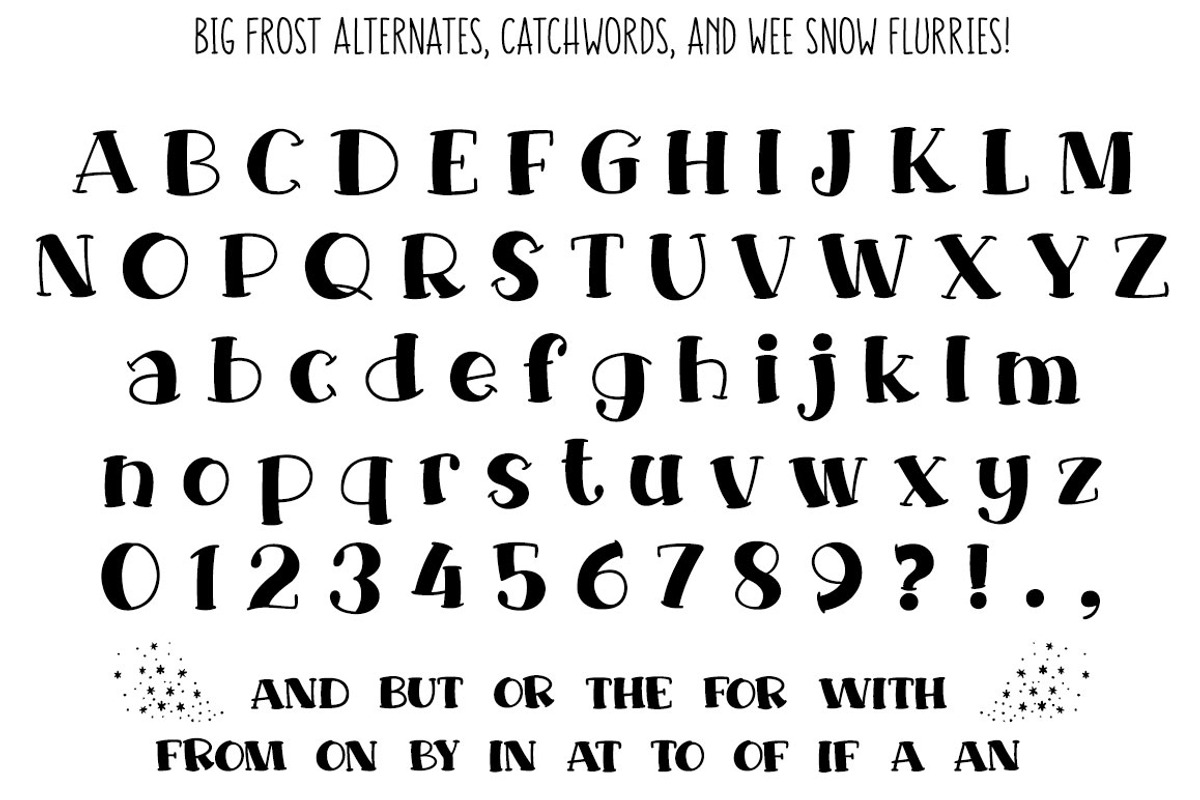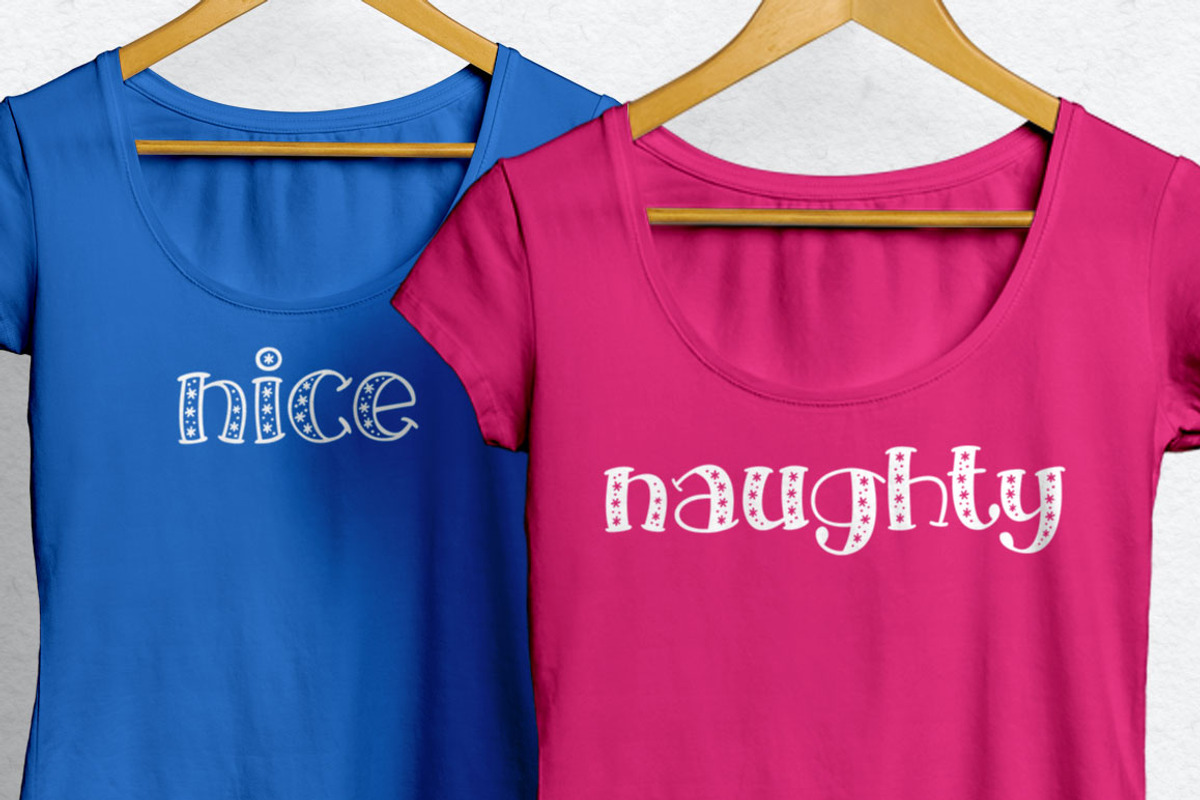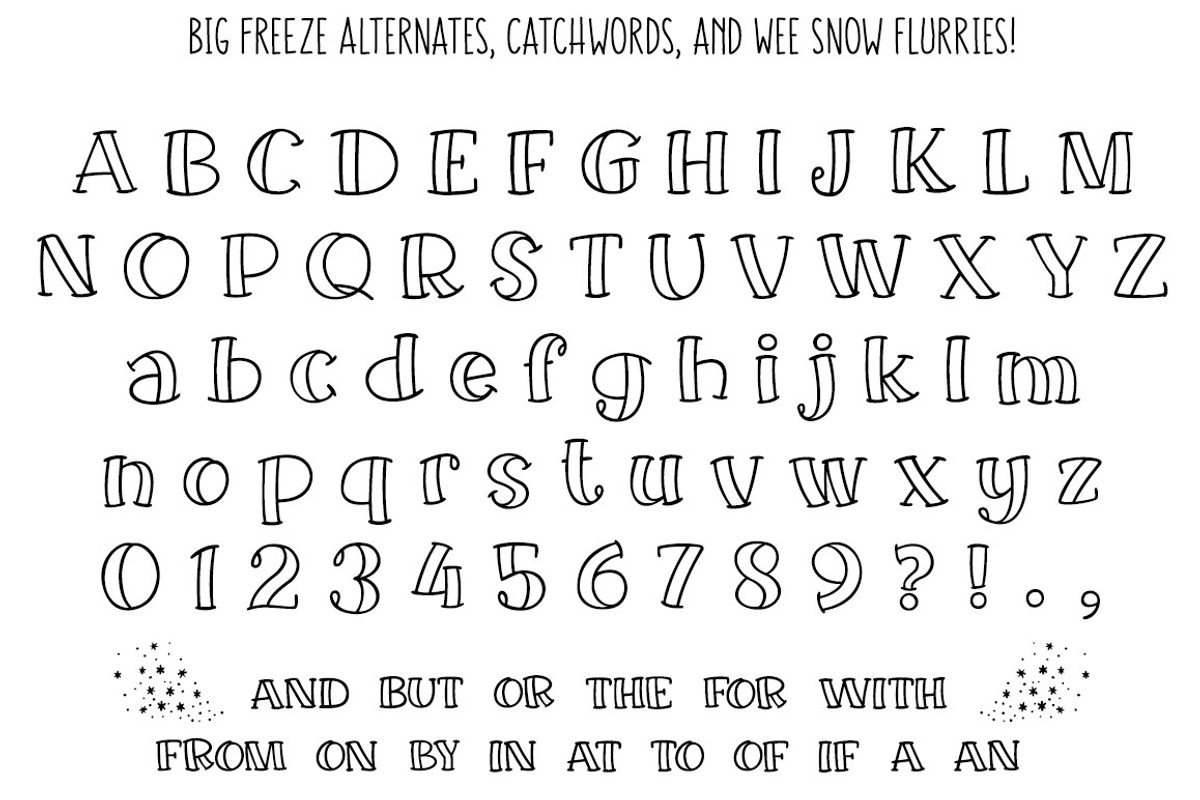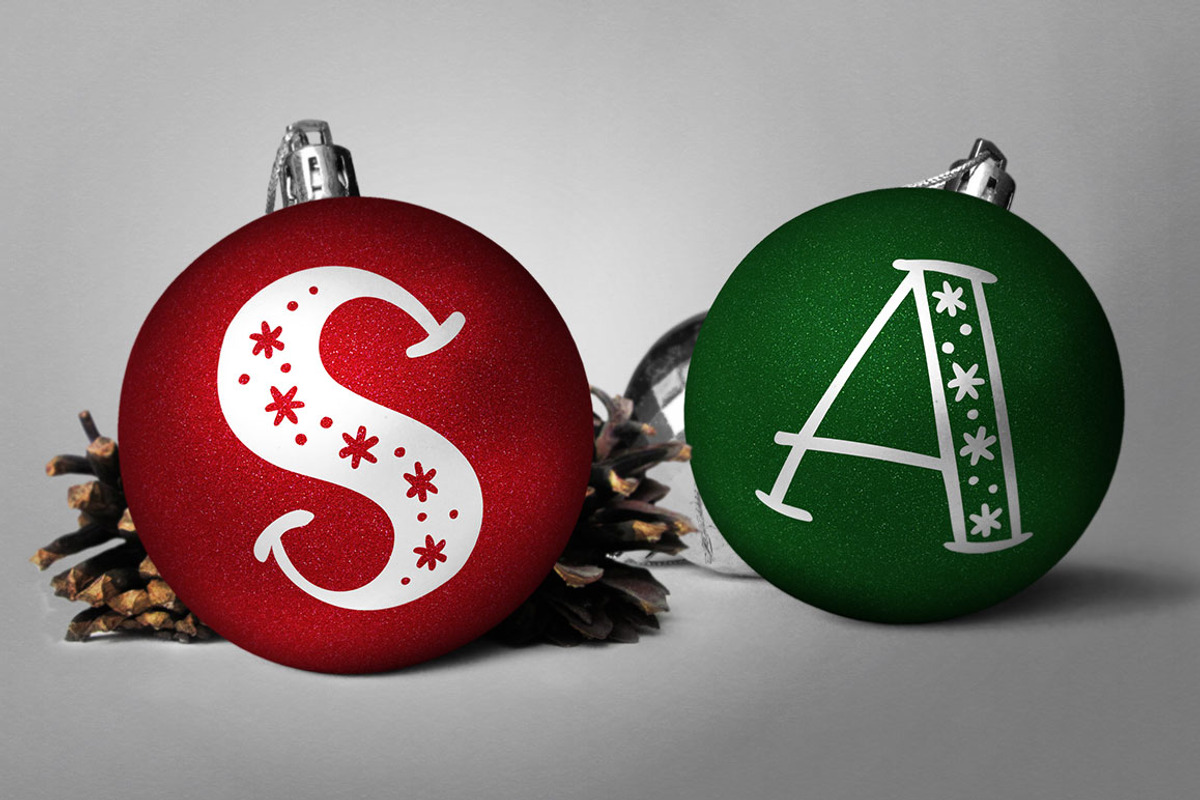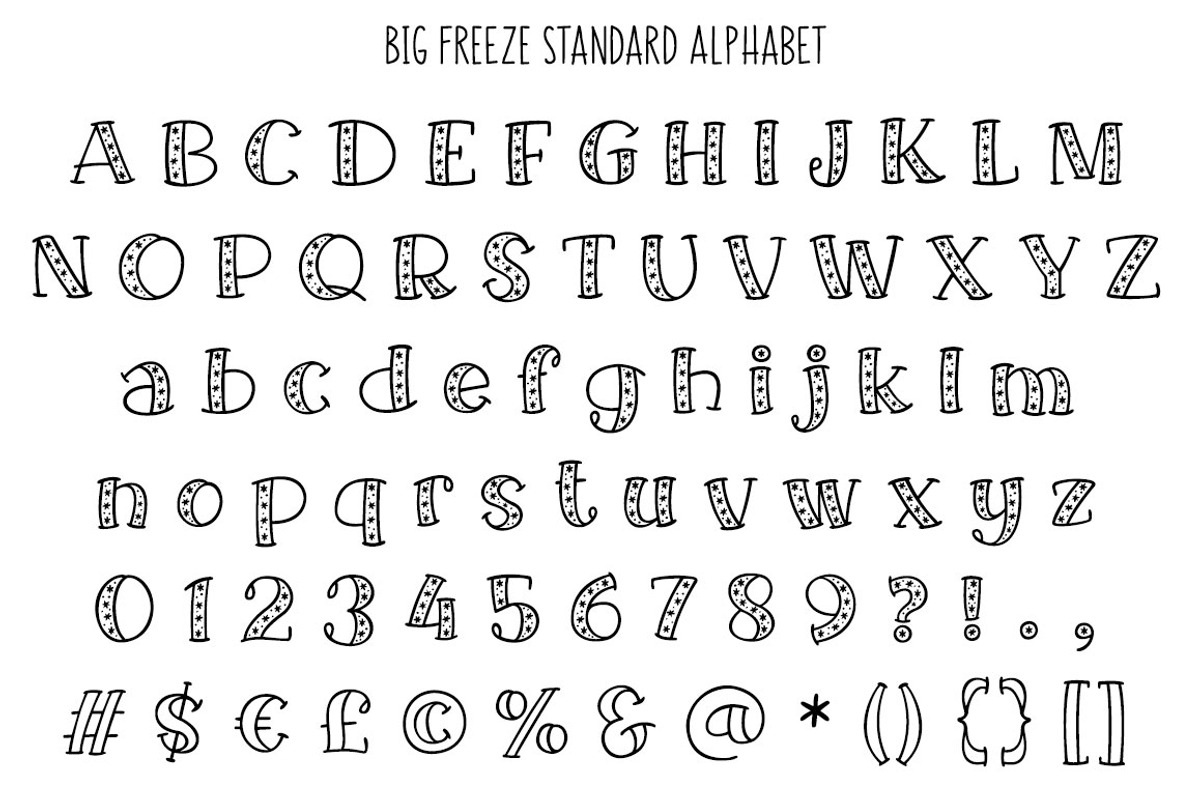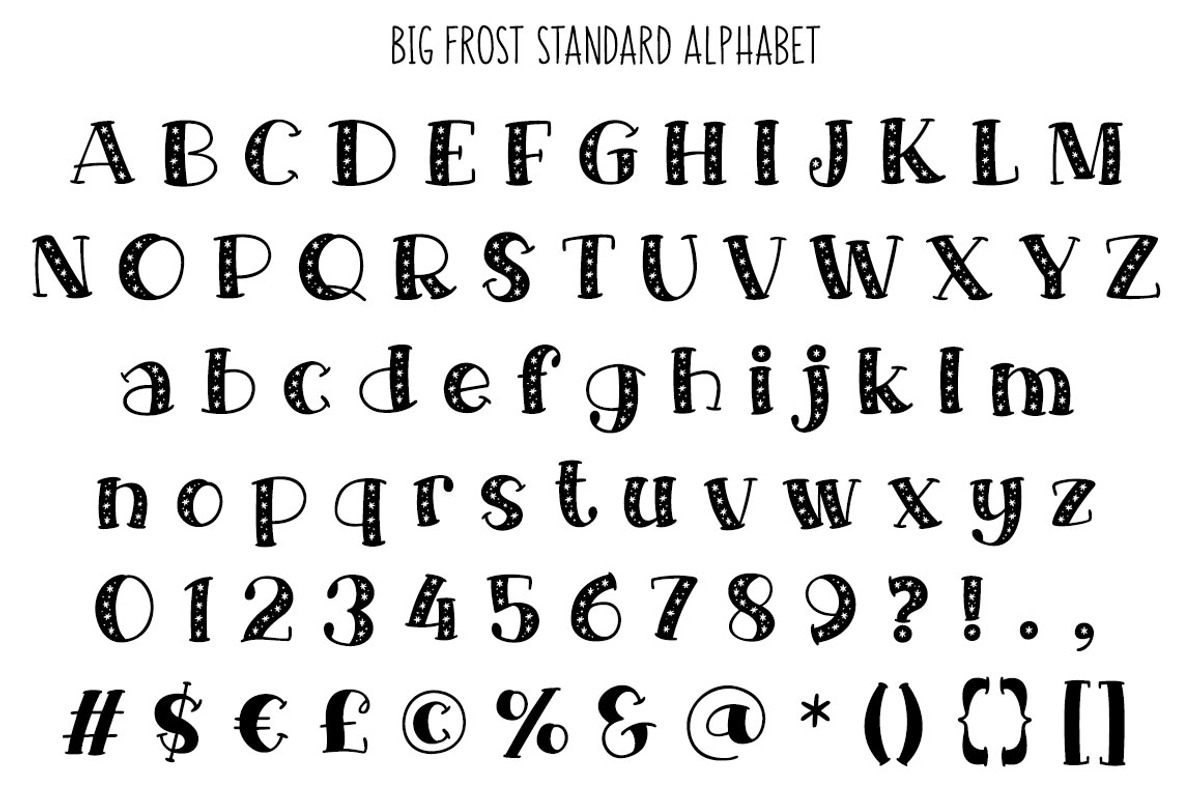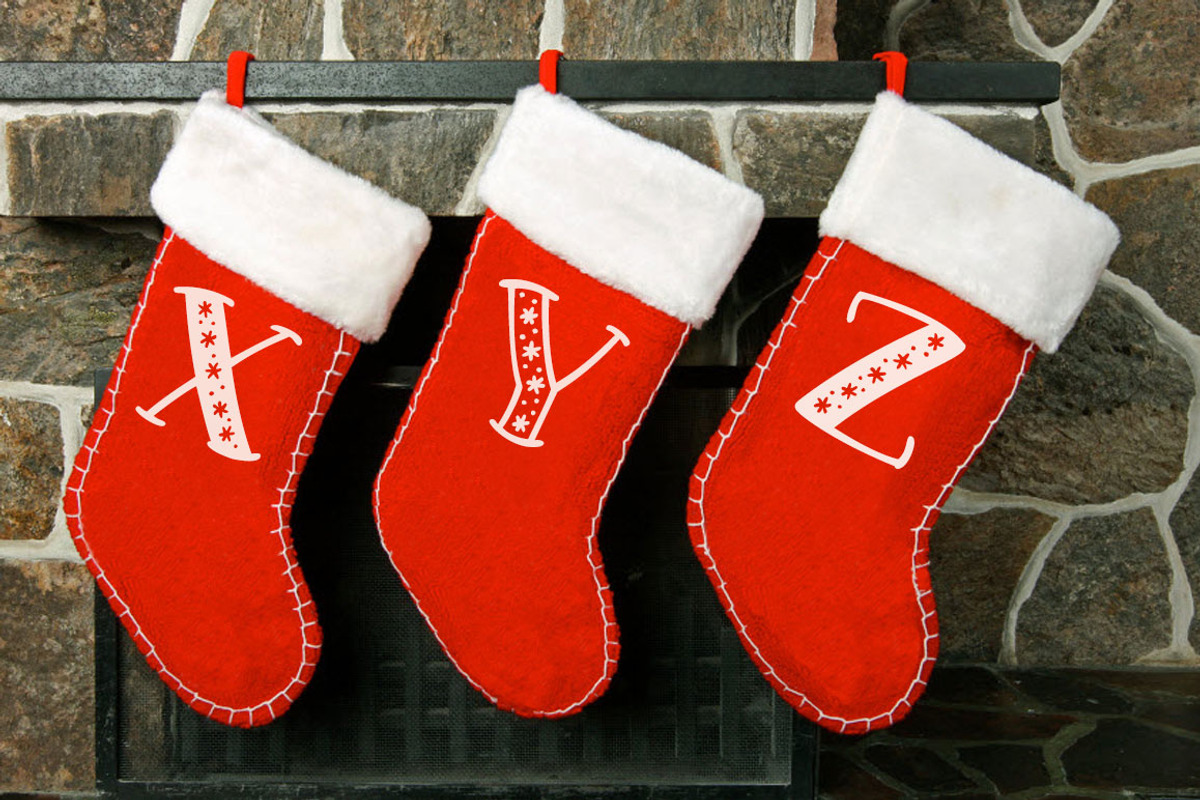
Big Freeze & Big Frost: winter fonts
Big Freeze & Big Frost: winter fonts by Missy Meyer is a font selected for branding, posters, packaging, typography.
- And even better, each one comes with a full alternate alphabet without the snowflakes as well!
Why Big Freeze & Big Frost: winter fonts is worth a look
Big Freeze & Big Frost: winter fonts by Missy Meyer fits naturally into Branding, posters, packaging, typography.